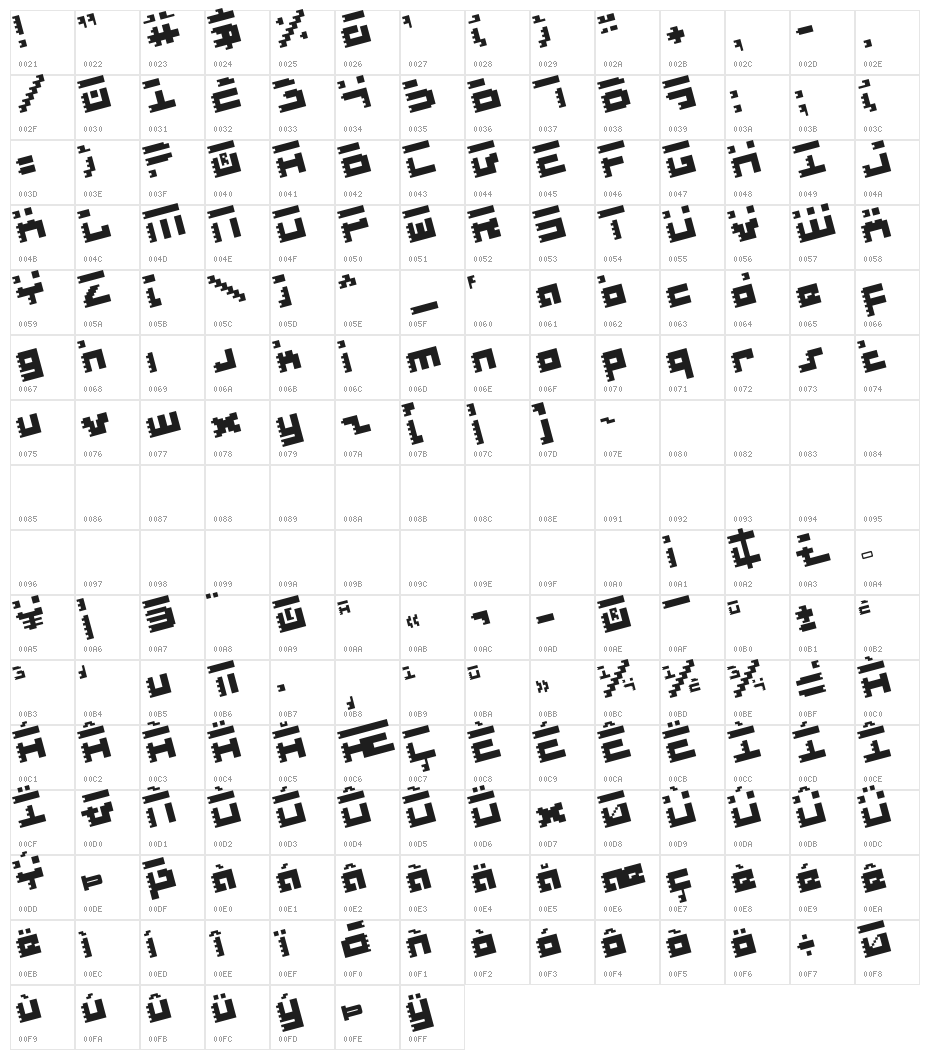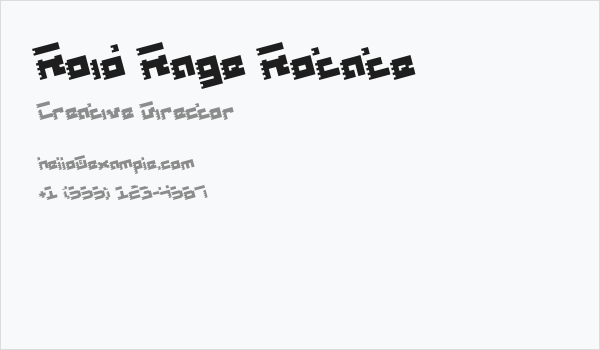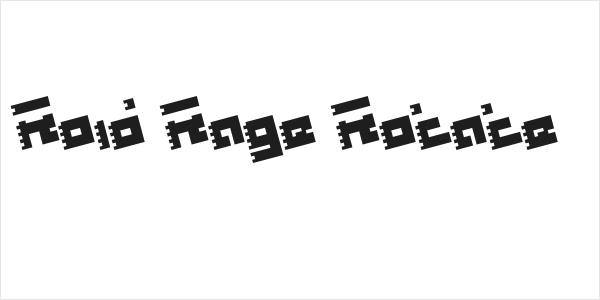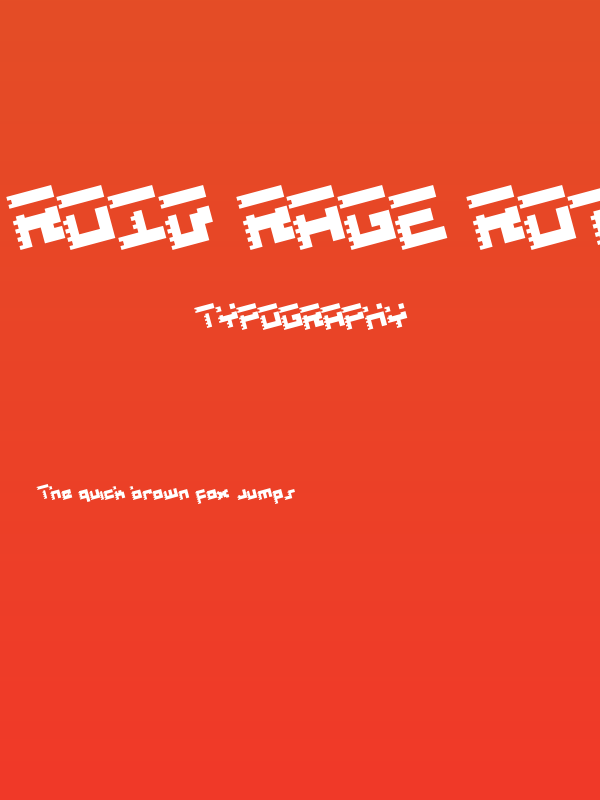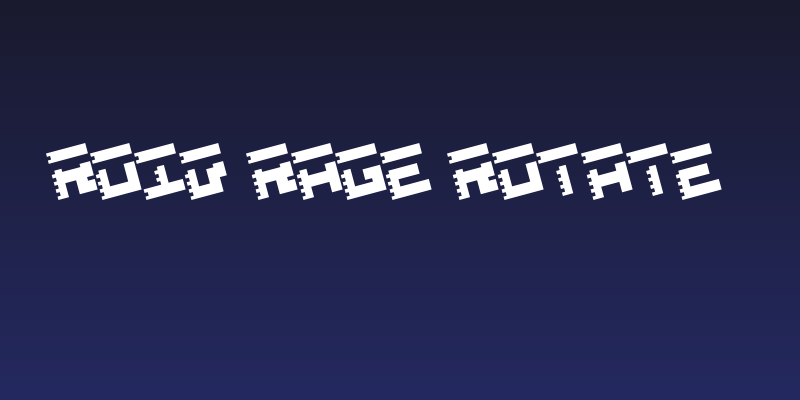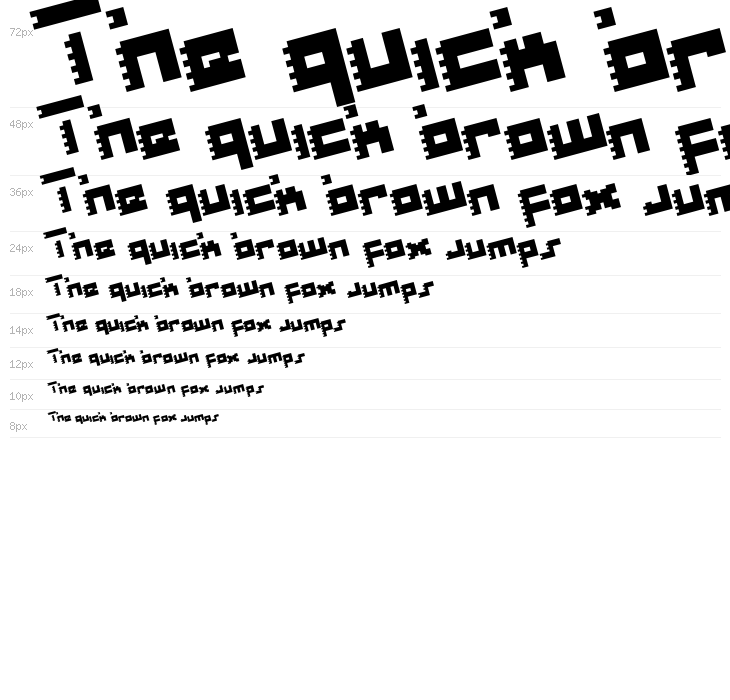
Roid Rage Rotate Font
Roid Rage Rotate Description
This font features a bold, pixelated style reminiscent of retro video games and digital displays. Each character is constructed with a blocky, geometric design, giving it a distinct, edgy appearance. The angular shapes and sharp corners create a sense of movement and energy, making it ideal for projects that require a futuristic or tech-inspired look. The uppercase and lowercase letters maintain a consistent style, while the numbers and special characters complement the overall aesthetic. The font's unique design makes it stand out, offering a playful yet structured feel.
| Overall Style | Modern, Retro |
| Proposed Projects | Ideal for video game graphics, tech-themed posters, digital art, and creative branding. |